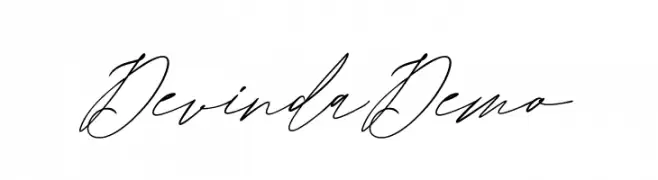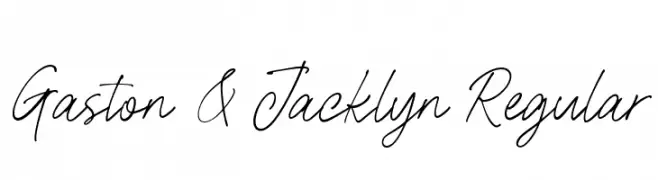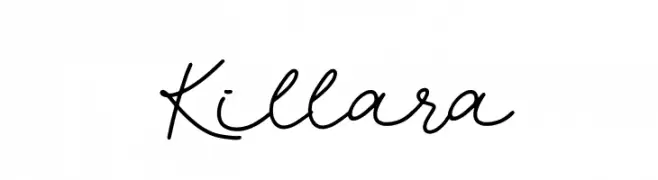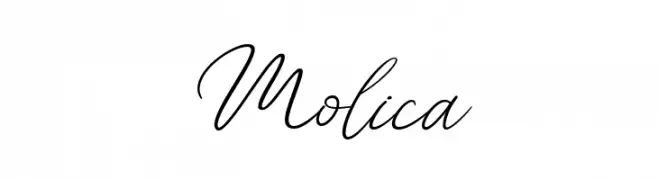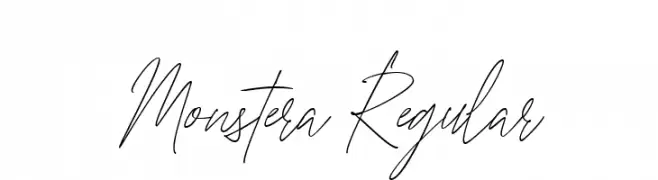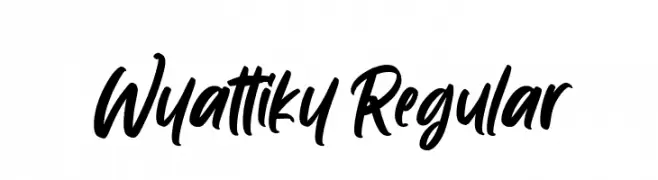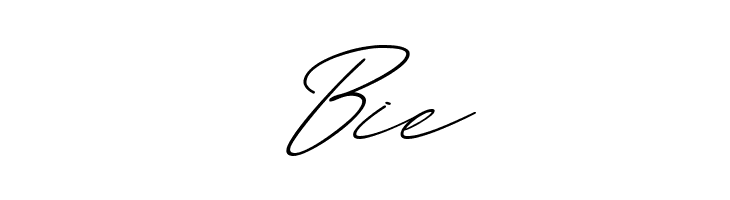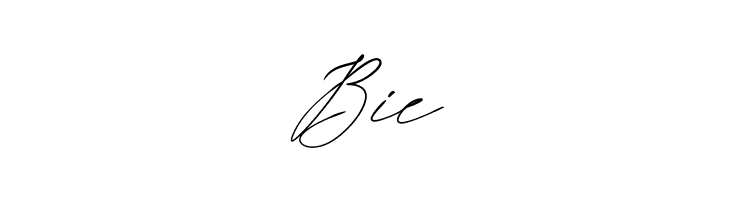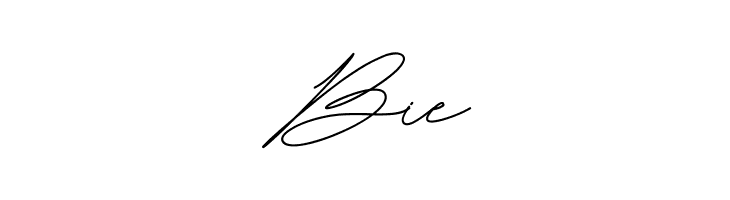
An elegant, flowing script font with a natural handwriting style.
A bold, playful script font with a dynamic and informal style.
A fluid, handwritten font with elegant, connected strokes and dynamic thickness.
A bold, dynamic script font with flowing, interconnected strokes.
A fluid, cursive script font with elegant, connected strokes.
A fluid and elegant script font with cursive, connected strokes.
A bold, cursive font with a playful and energetic style.
A flowing, cursive script font with an elegant and artistic style.
A fluid, cursive font with a natural handwriting style.
A graceful, cursive script font with elegant, flowing strokes.